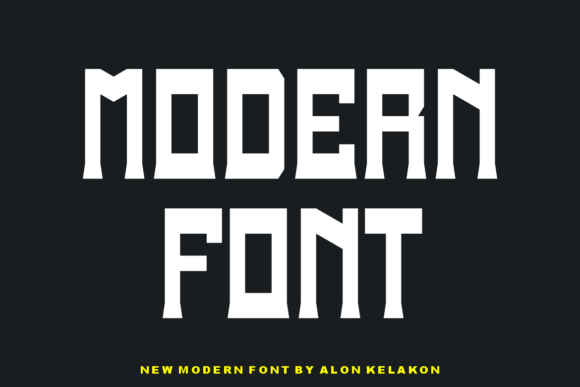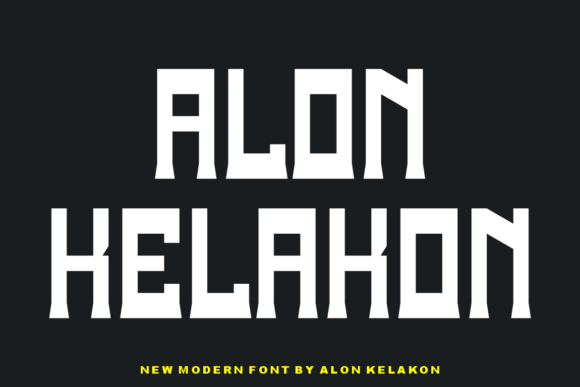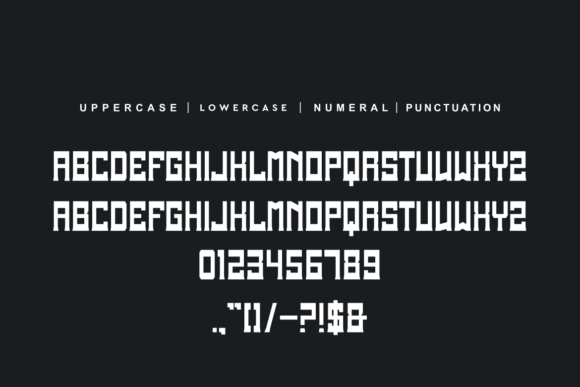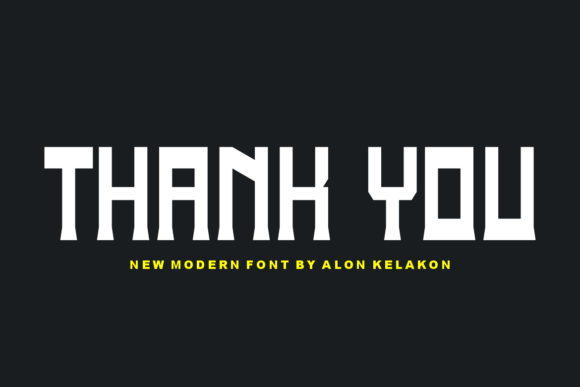
The Gazymen Font: Elevate Your Designs with a Modern Twist
I’ll never forget the moment I stumbled upon the Gazymen font. I was working on a project for a client who needed a bold, eye-catching display font to make their brand stand out. As I scrolled through my font library, I found myself stuck in a sea of familiar sans-serifs and tired scripts. That’s when I discovered Gazymen – a modern and intriguing display font that instantly captured my attention.
Here’s the lowdown on Gazymen: it’s a beautiful, modern display font that’s perfect for creative projects. Here are some things I love:
• ✨ Unique character set: Gazymen boasts an interesting and distinctive character set that’s sure to make your designs pop.
• ✅ Highly legible: Despite its bold and modern aesthetic, Gazymen remains surprisingly legible, even at smaller sizes.
• 💡 Versatile: This font works well for a wide range of creative projects, from branding and advertising to packaging and digital media.
Of course, no font is perfect, and Gazymen has a few quirks:
• ⚠️ Limited use cases: Due to its bold and attention-grabbing nature, Gazymen works best as a display font – it may not be the best choice for body text or longer blocks of content.
• 🤔 Some glyph limitations: While Gazymen has an impressive character set, some users may find the lack of certain special characters or diacritical marks limiting.
The Designer Inspiration Behind Gazymen
While the true story behind Gazymen’s creation may be lost to the ages, it’s easy to imagine a designer who was inspired by the bold and modern aesthetic of urban landscapes. Perhaps they wanted to create a font that captured the energy and excitement of city life – a font that would make designs stand out and demand attention.
What type of projects is Gazymen best suited for? Gazymen works well for a wide range of creative projects, including branding, advertising, packaging, and digital media.
Can I use Gazymen for body text? While Gazymen is highly legible, it’s primarily designed as a display font – it may not be the best choice for longer blocks of content.
Does Gazymen support OpenType features? Yes, Gazymen supports OpenType features, including ligatures, stylistic alternates, and glyphs.